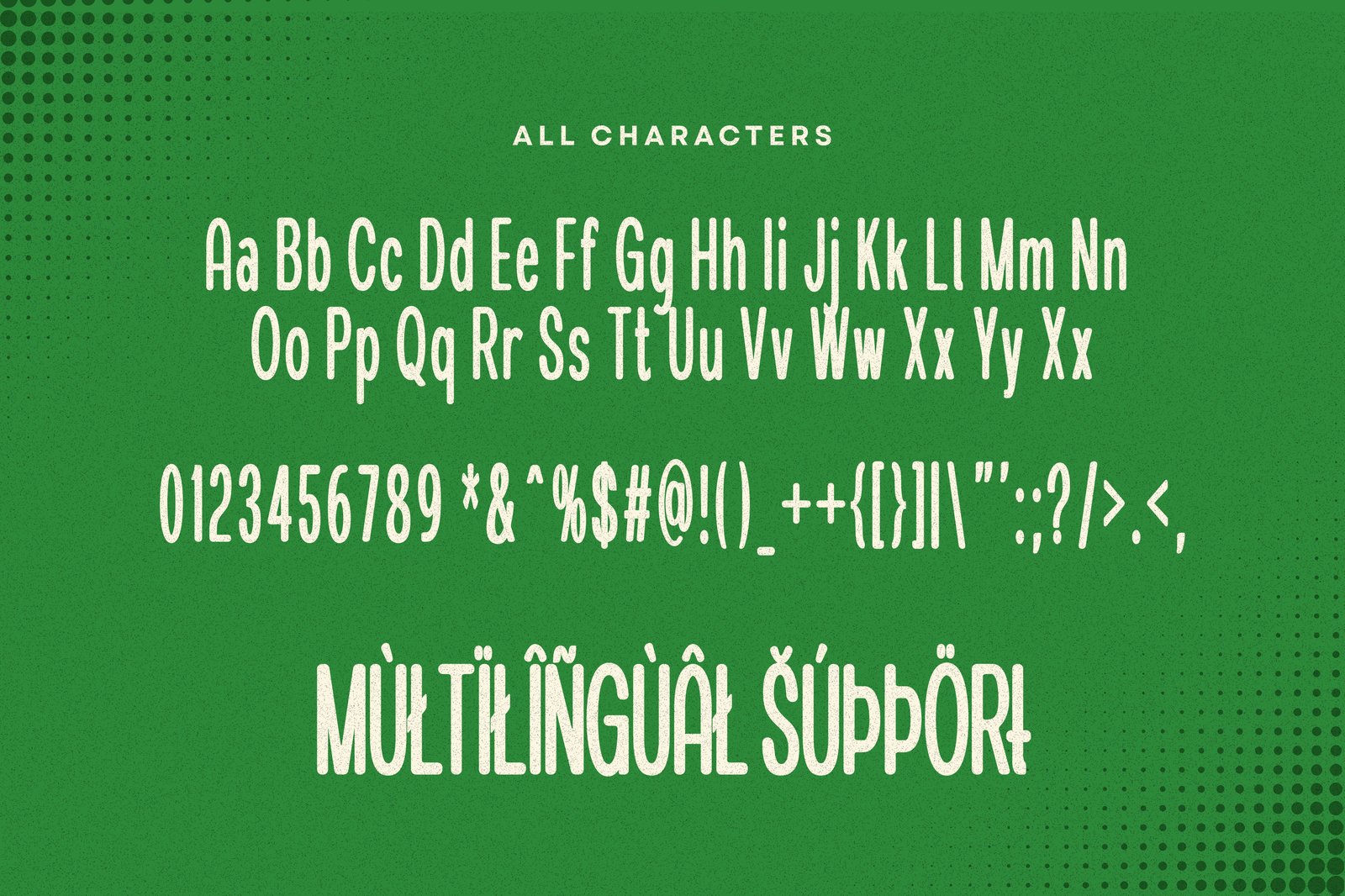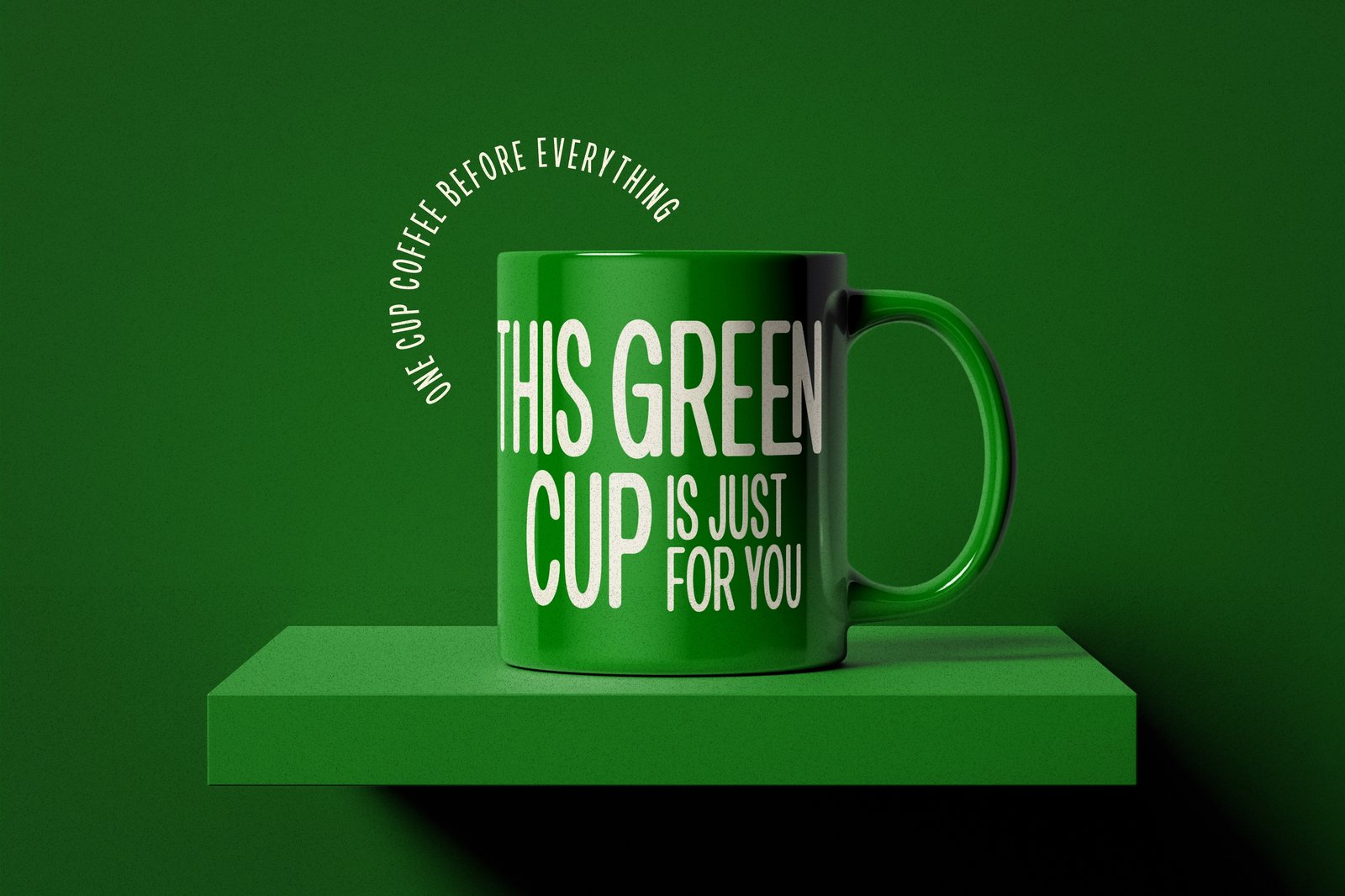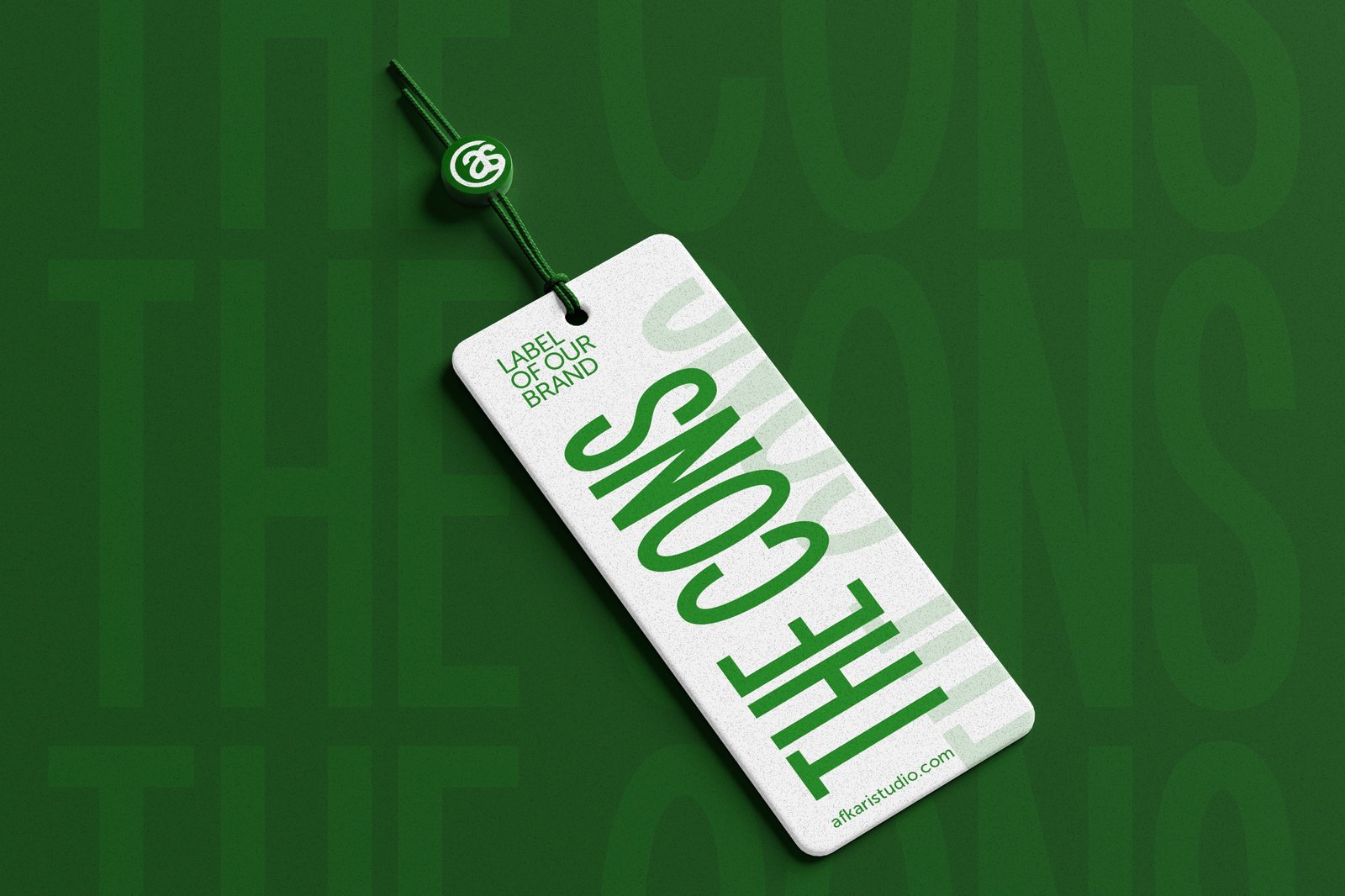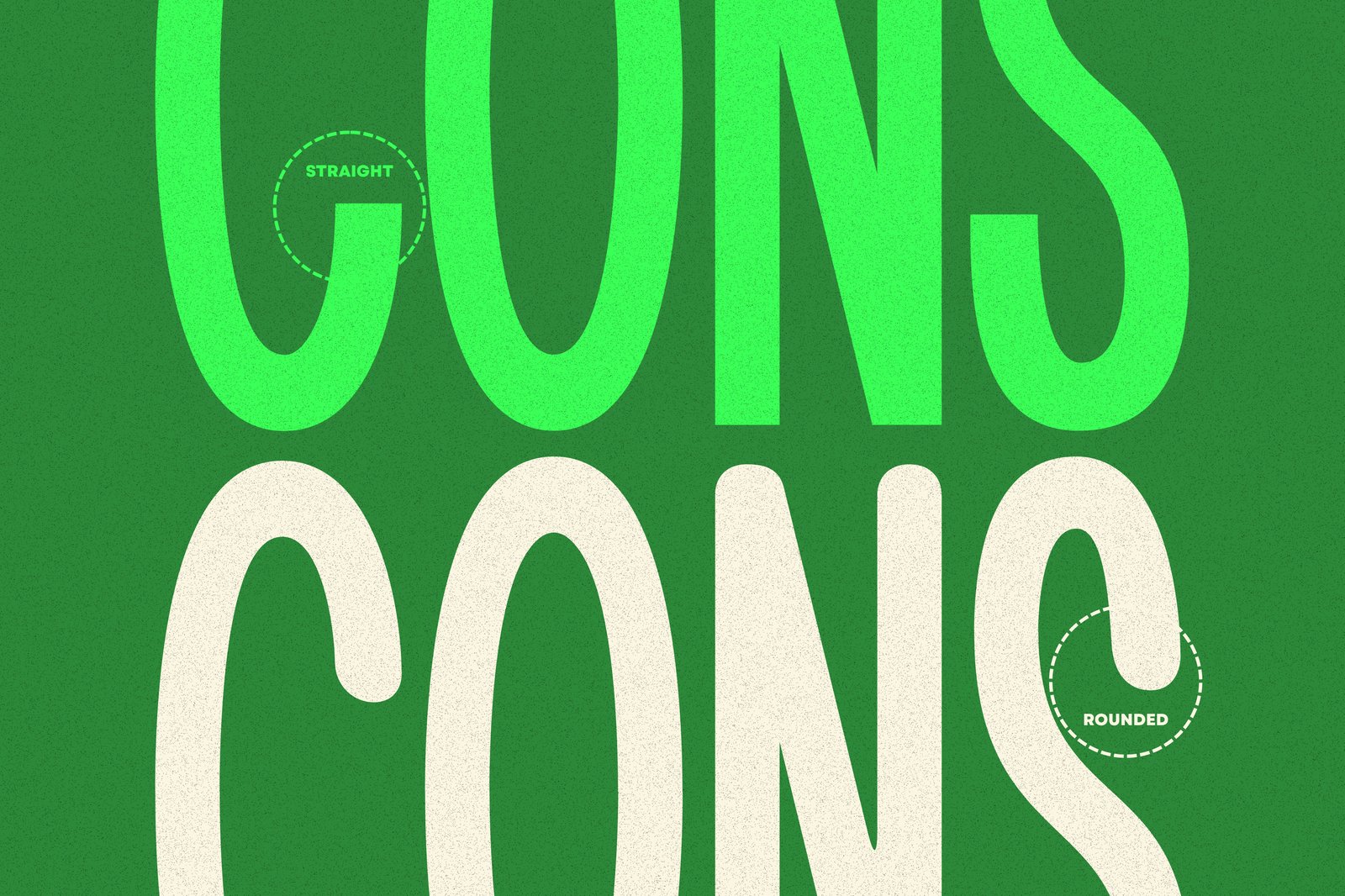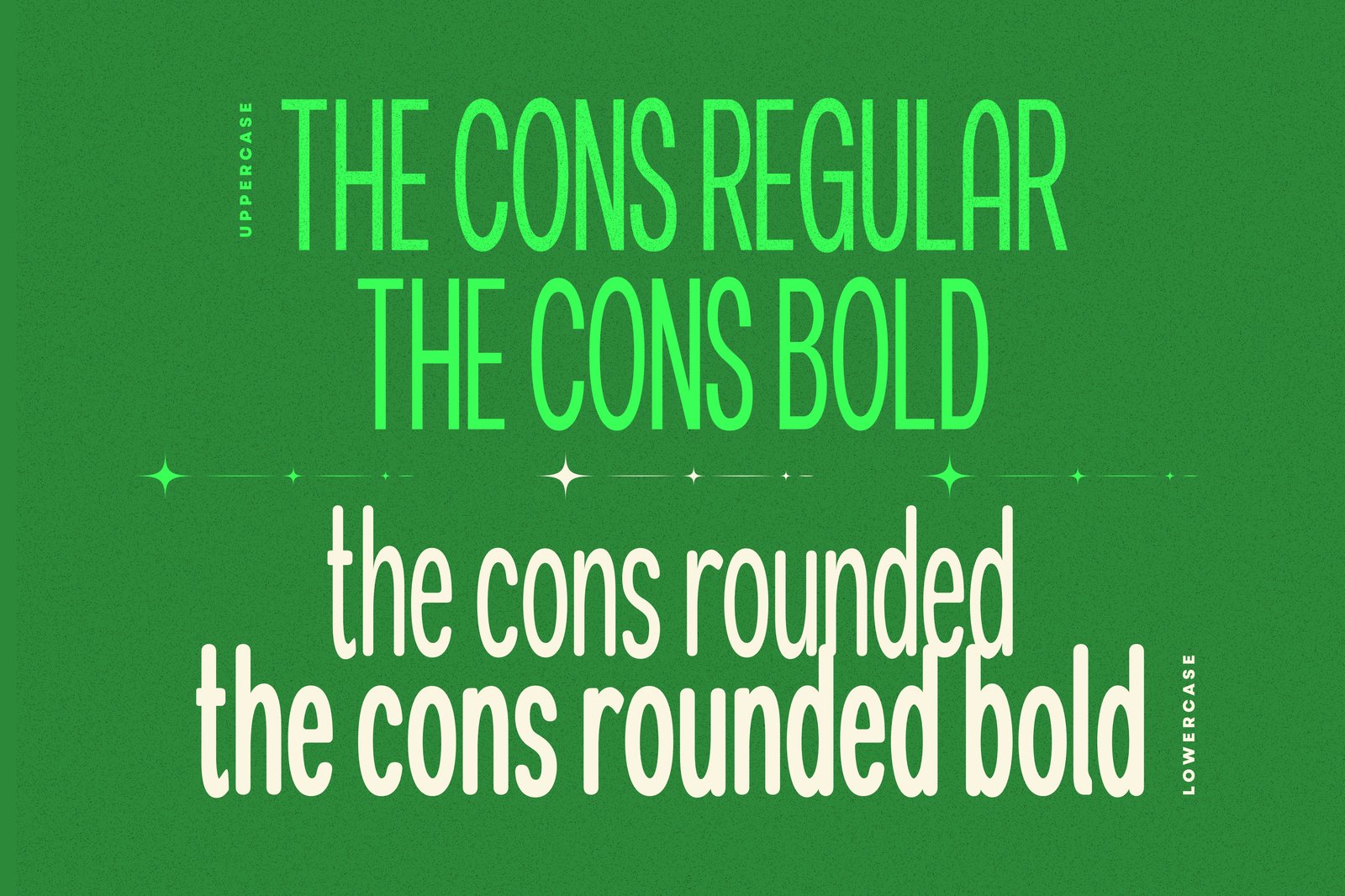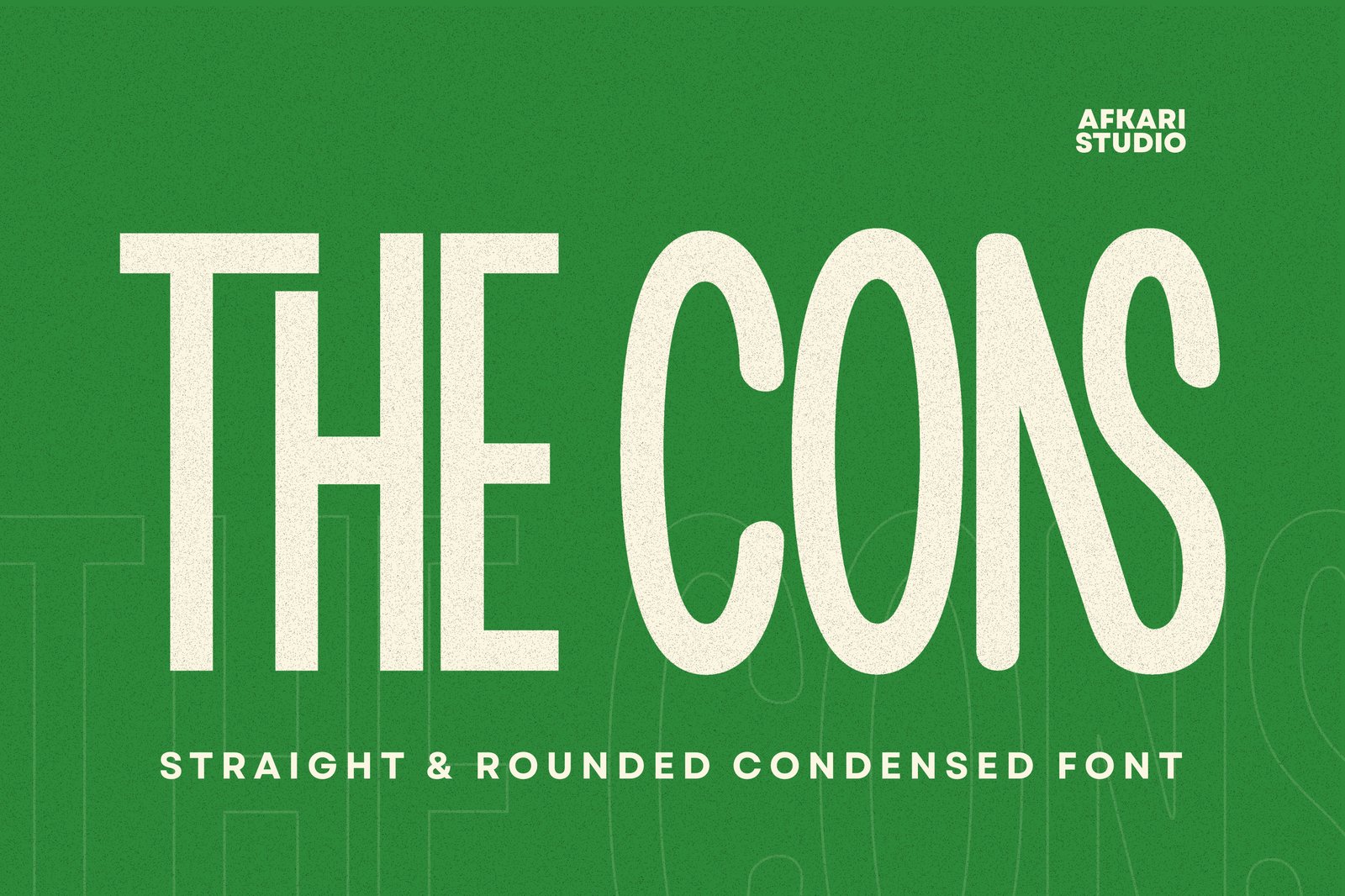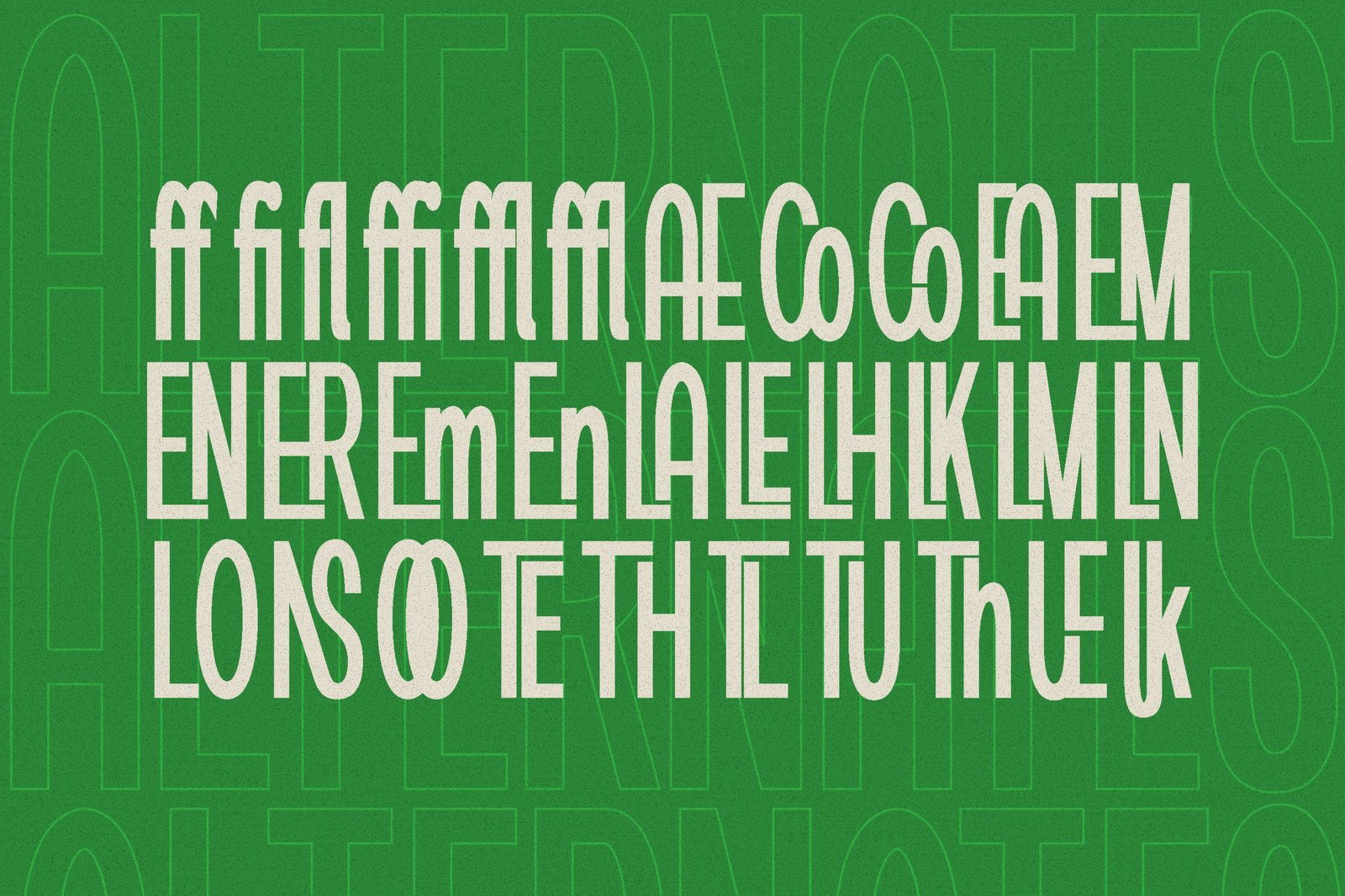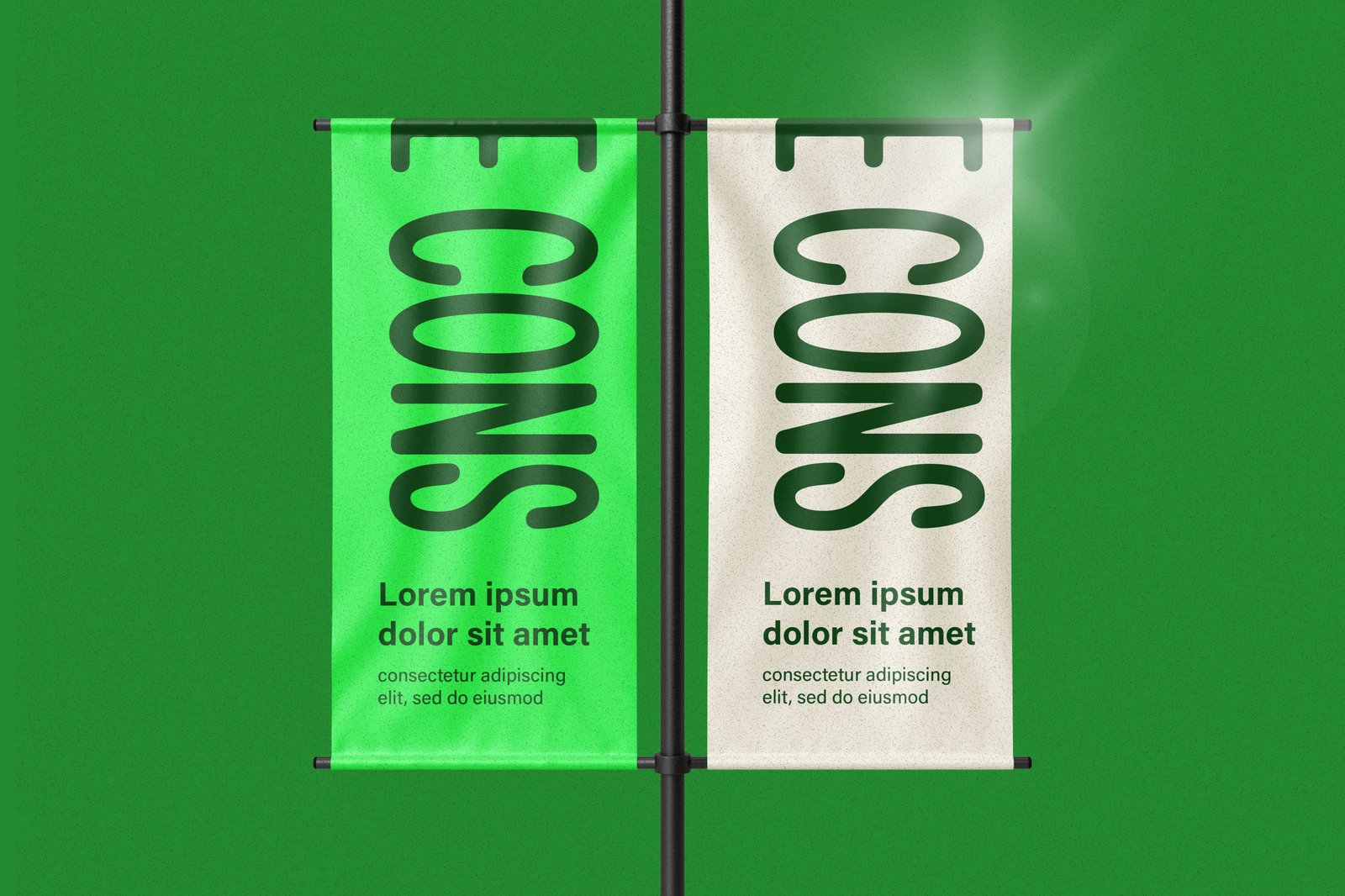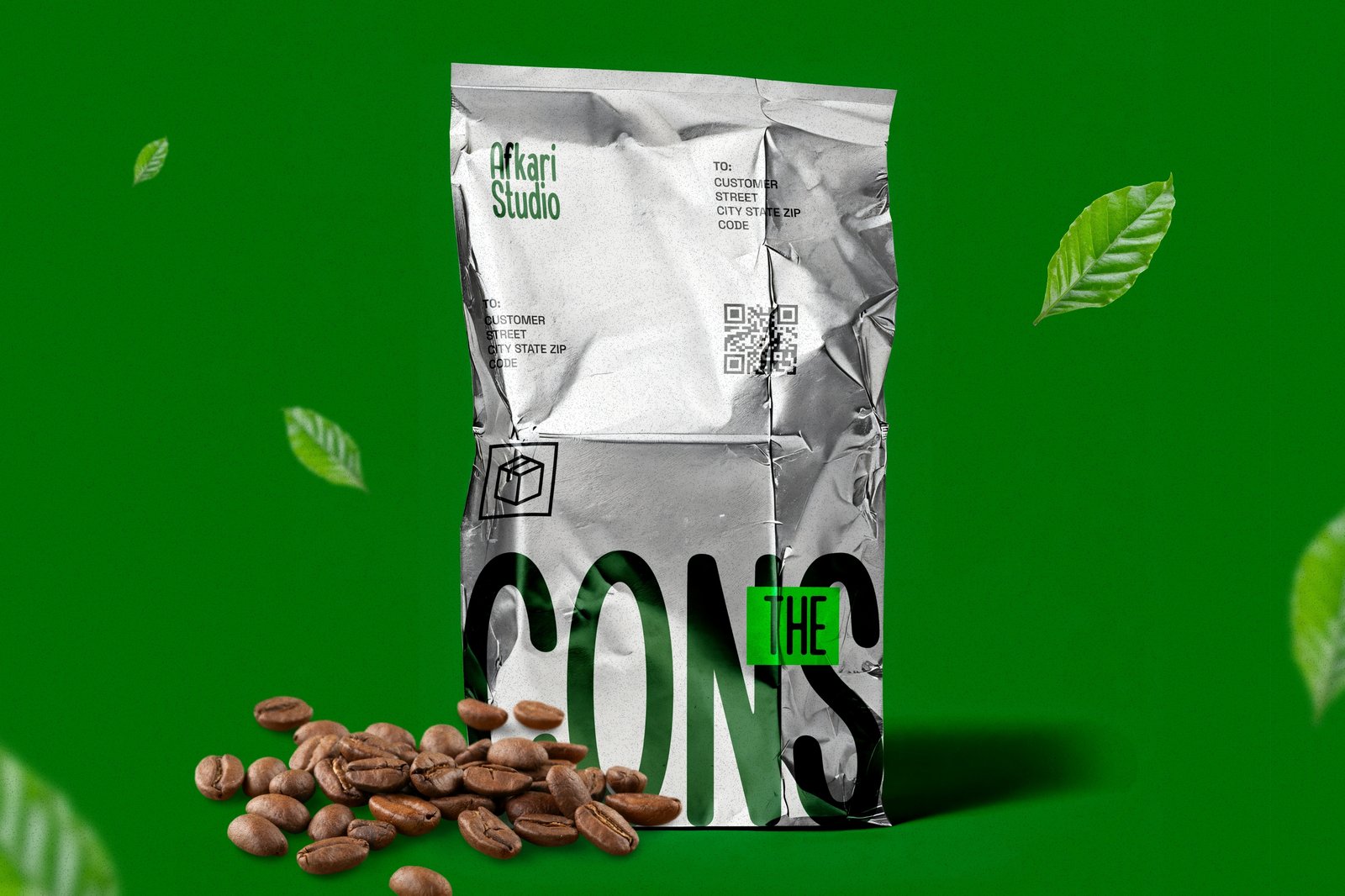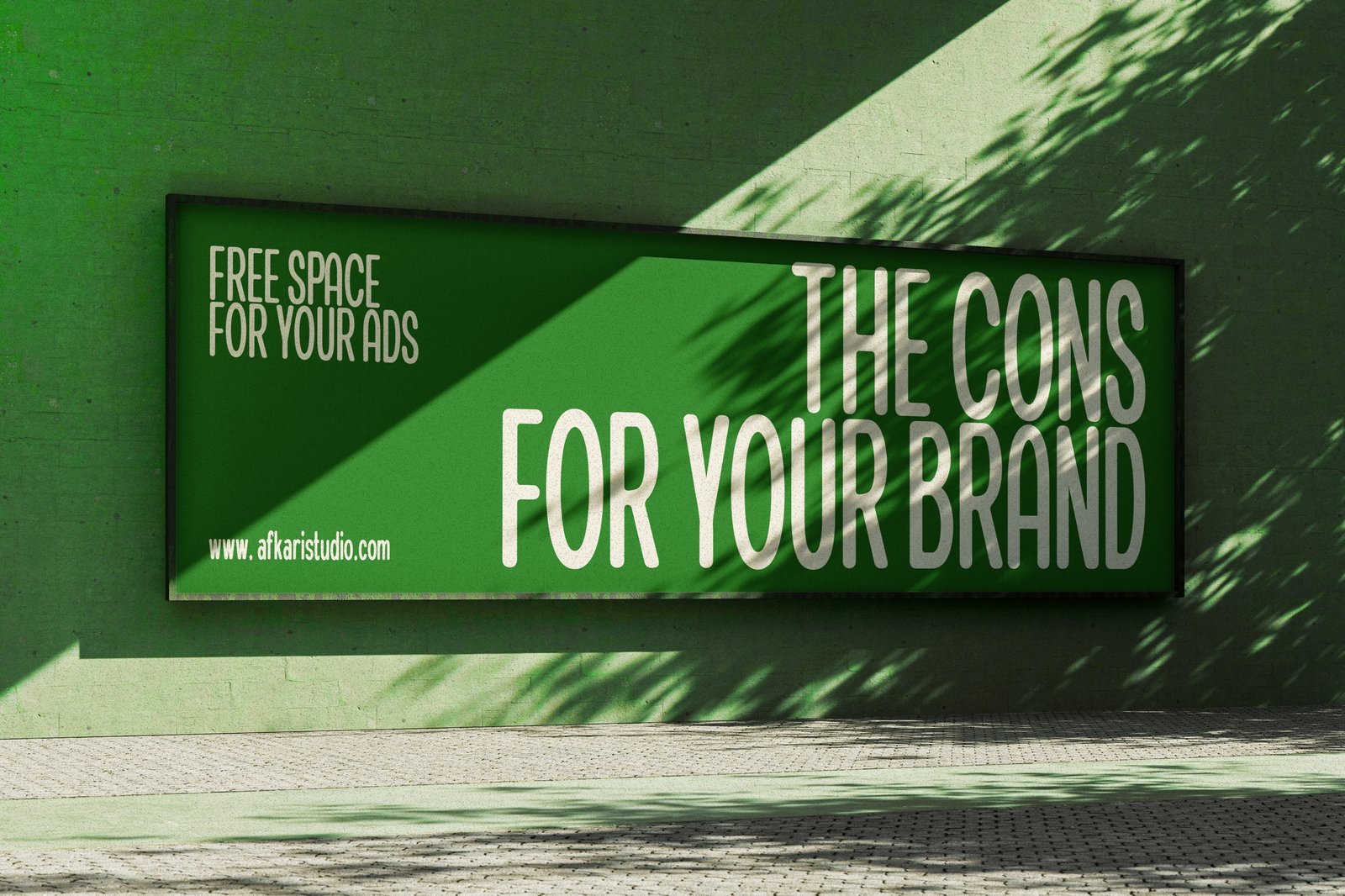
The Cons - Condensed Sans Serif Display Font
The Cons – Condensed Sans Serif Display Font is a strong, compact typeface crafted for designers who need maximum impact with minimal space. Its narrow letterforms and clean lines make it perfect for bold headlines, editorial layouts, modern branding, etc.
Designed with flexibility in mind, The Cons includes 4 versatile styles:
1. Regular – sleek and minimal for modern aesthetics
2. Bold – striking and confident for high-impact design
3. Rounded – softened edges for a friendlier, approachable look
4. Bold Rounded – bold with a touch of warmth and personality
Whether you're building a tech-forward brand or an urban editorial spread, The Cons delivers clarity, style, and adaptability in every character. It's the perfect choice for designers who value bold presence and clean design.
Features;
- Uppercase, Lowercase, Number, and Punctuation
- Special Alternates and ligatures
- Mültîlíñgúãl Sùppört for; ä ö ü Ä Ö Ü ß ¿ ¡
Make a bold statement in tight spaces with The Cons.